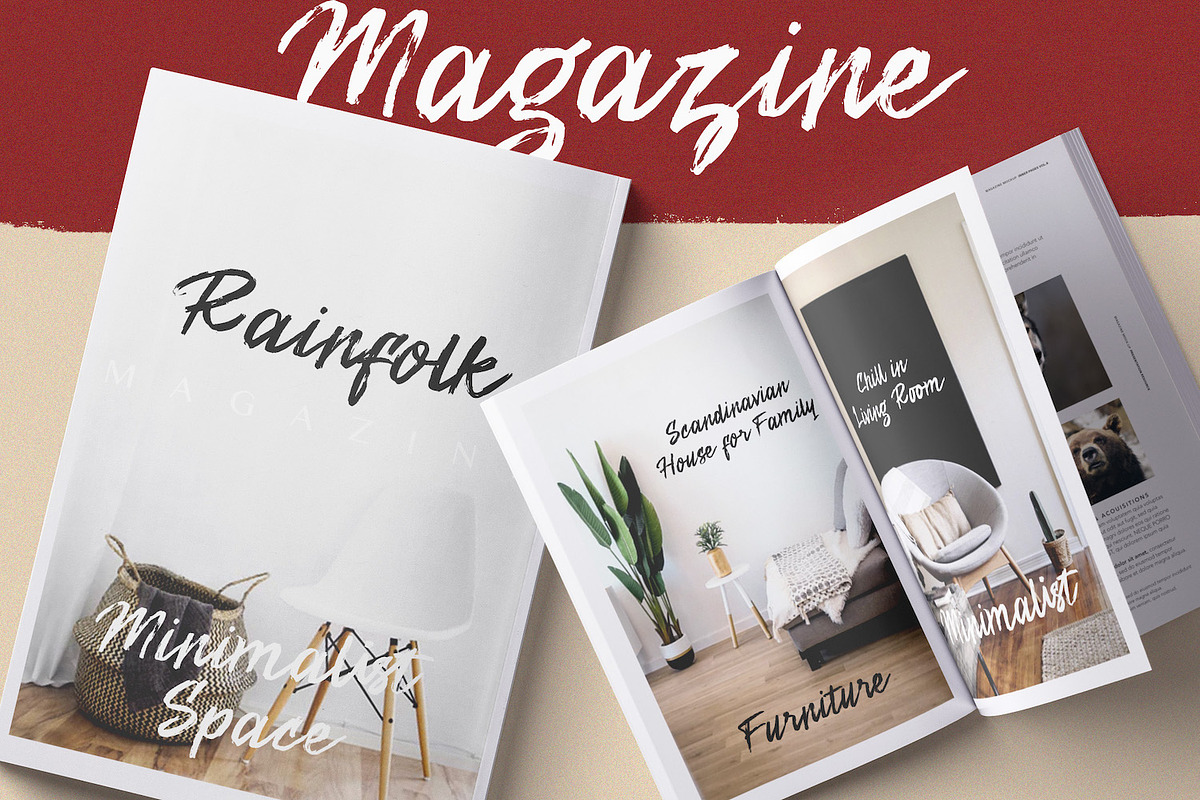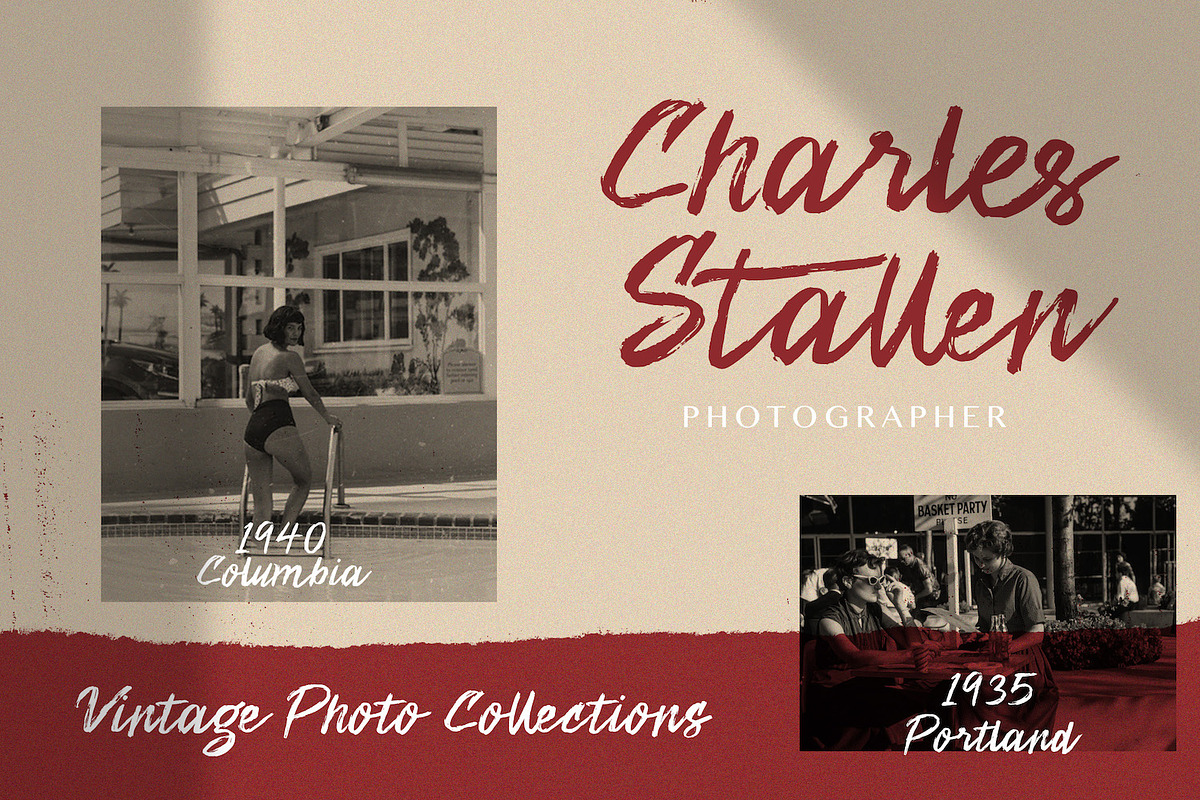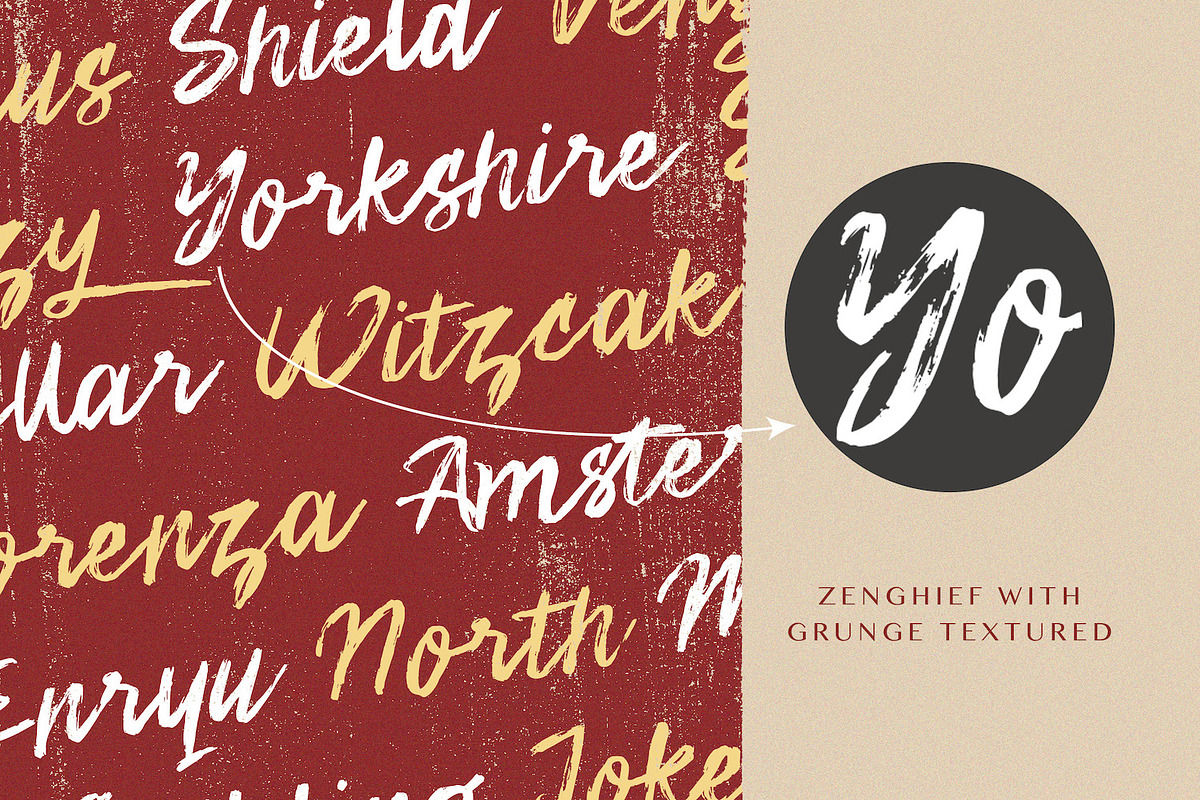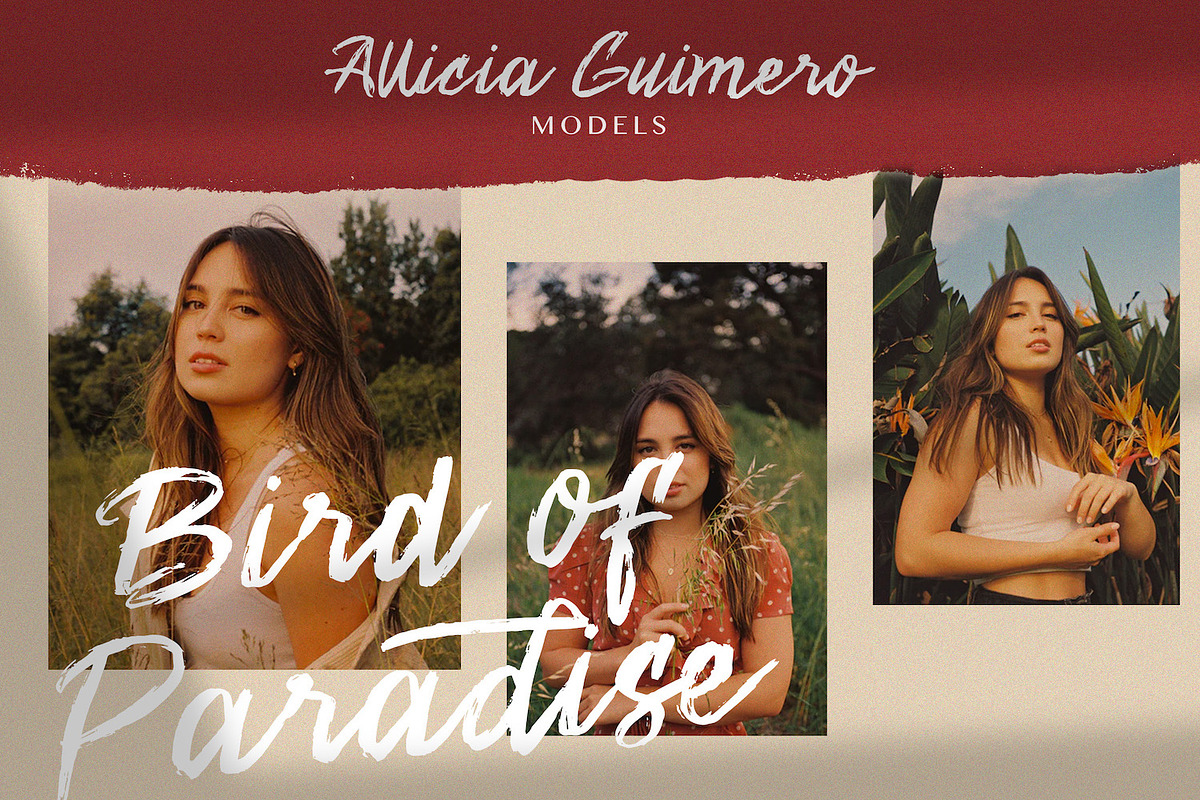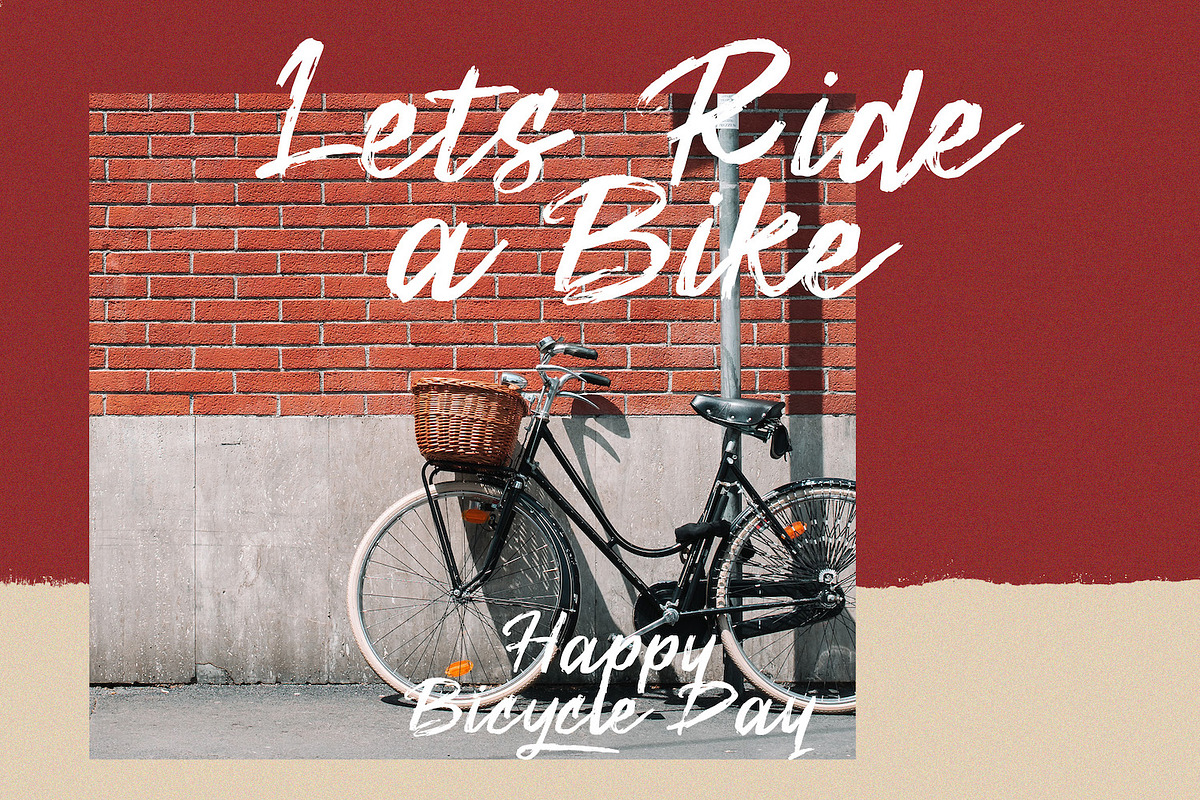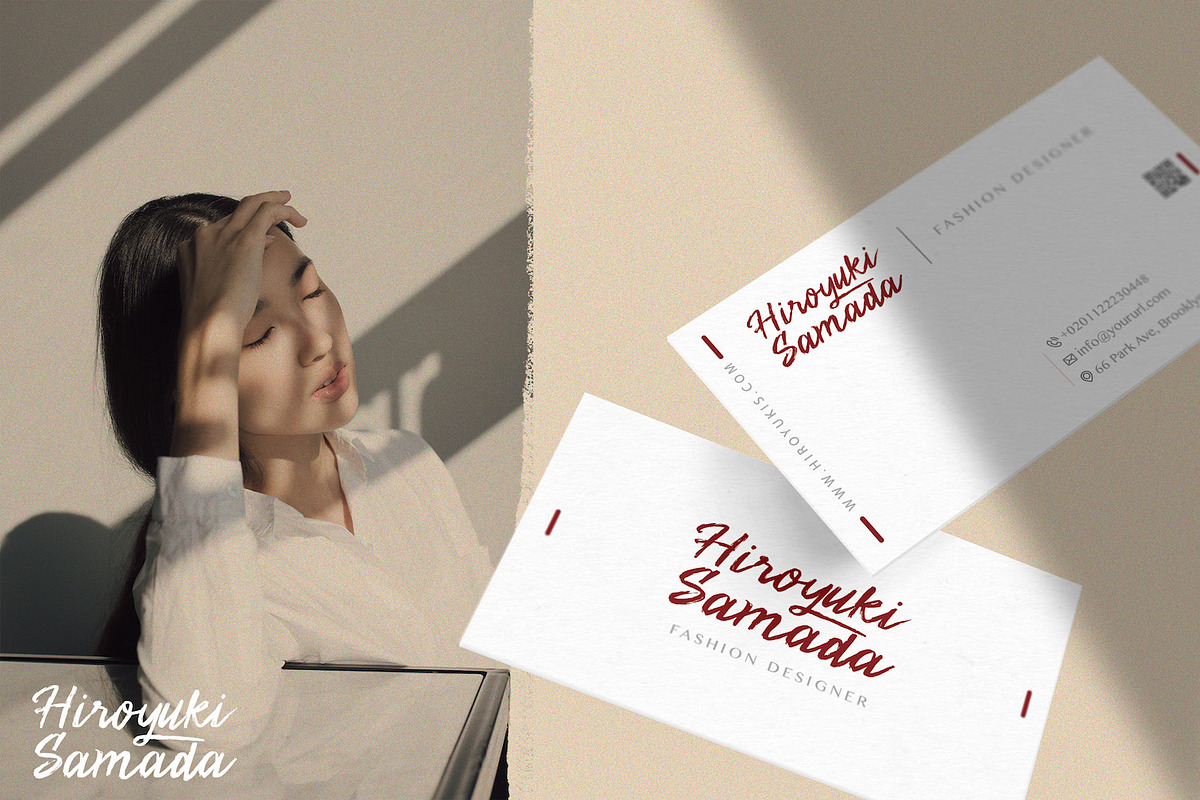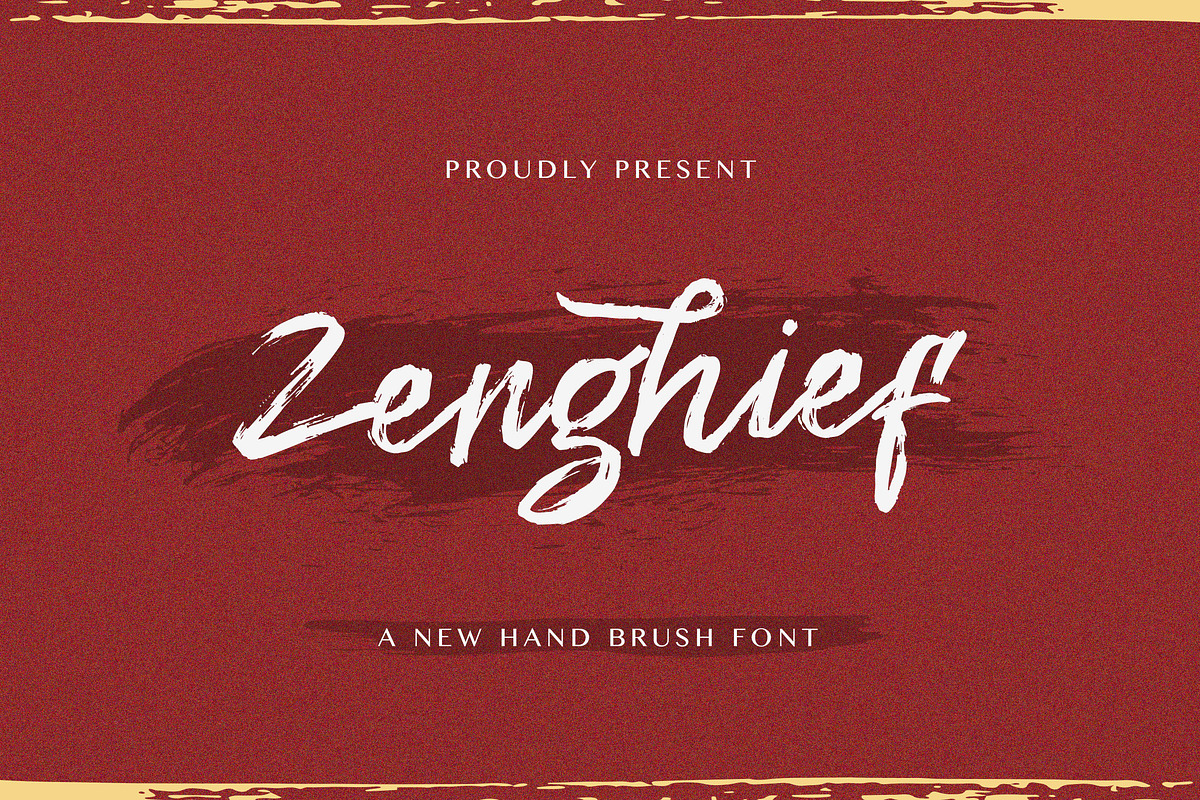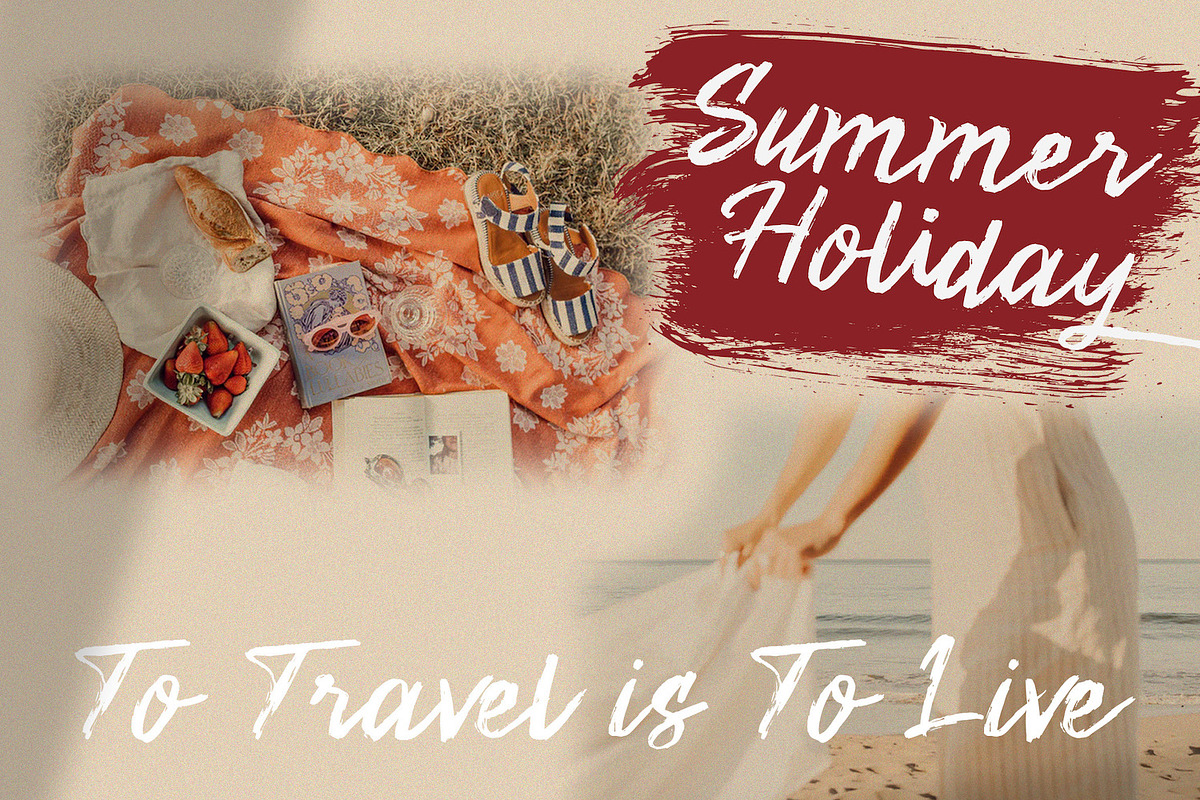
Zenghief - Hand Brush Font
Introducing Zenghief - Hand Brush Font
Zenghief is a script font with Modern hand brush style. The Zenghief font made with digital hand brush pen strokes that making this font look authentic and unique concept. This font is perfect for fashion brand, wedding invitation, business card, logo brand, Japanese font style, and then calligraphy.